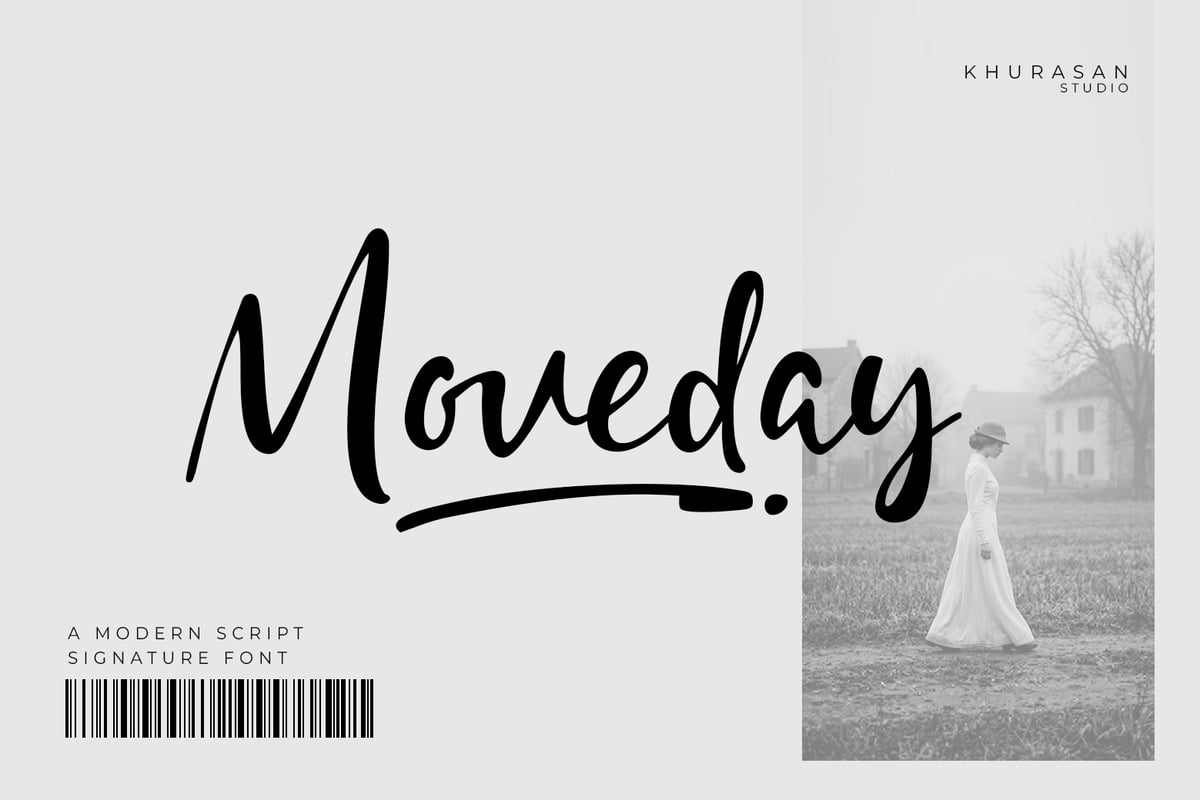
Moveday - A Modern Script Signature Font
Moveday is a modern script signature font that brings the beauty of real hand-lettering to life in every stroke.
Smooth, expressive, and full of personality — Moveday delivers authentic handwritten charm that makes your designs feel warm, stylish, and premium. Whether you're working on logos, branding, product packaging, quotes, social media posts, wedding designs, or creative projects, this typeface adds a personal and artistic touch that instantly stands out.